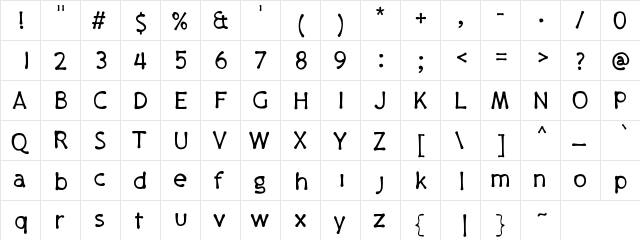
PajamaPants Medium Font Preview
PajamaPants Medium
Design Context for PajamaPants Typeface
PajamaPants offers clean, dependable letterforms without strong stylistic allegiance, making it a practical choice for designers who need flexibility.
Pro Tip: Pair PajamaPants with a font of contrasting weight or personality to build a more expressive typographic hierarchy.